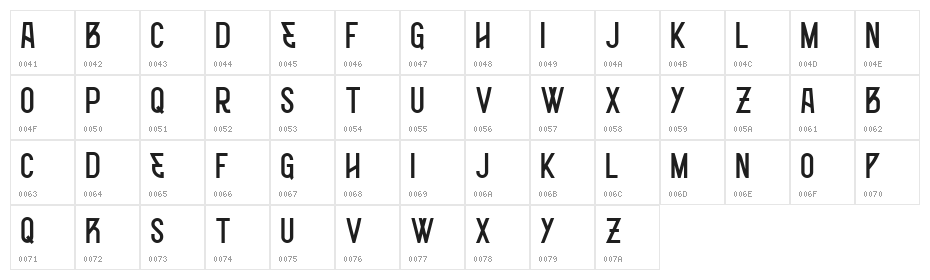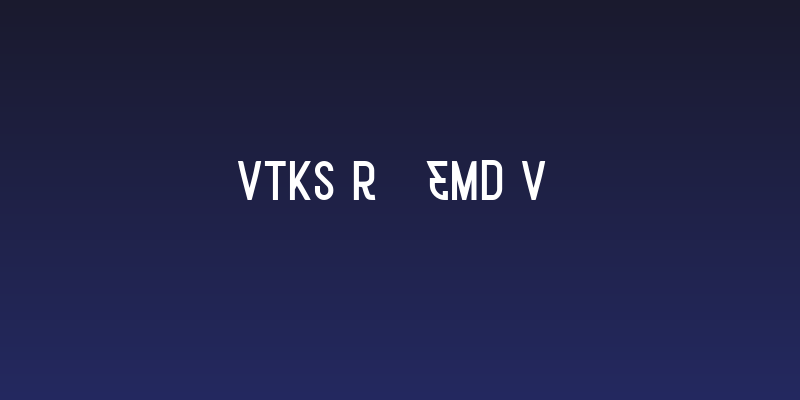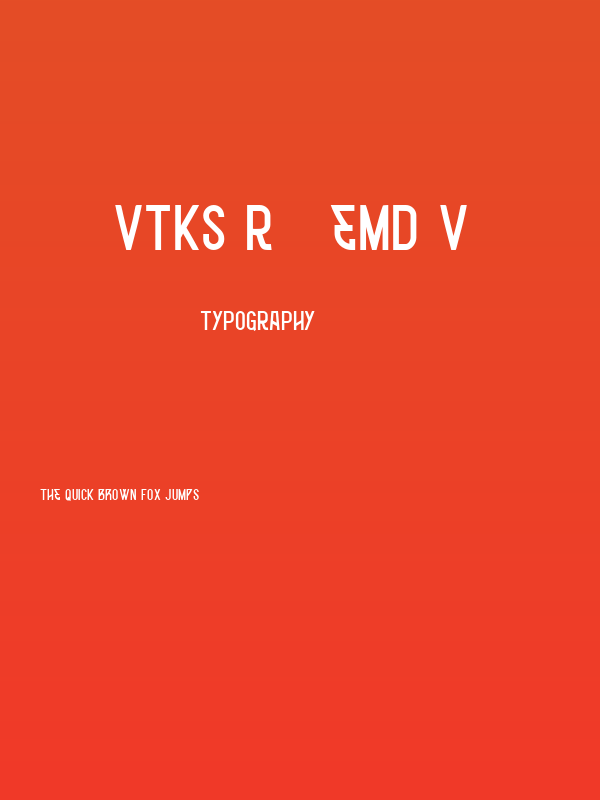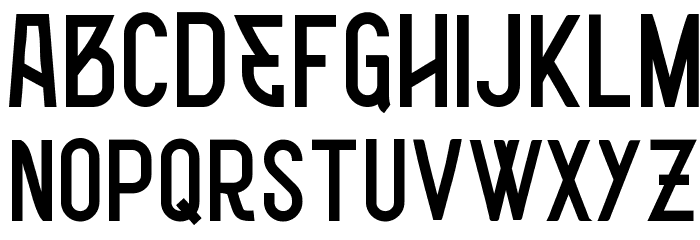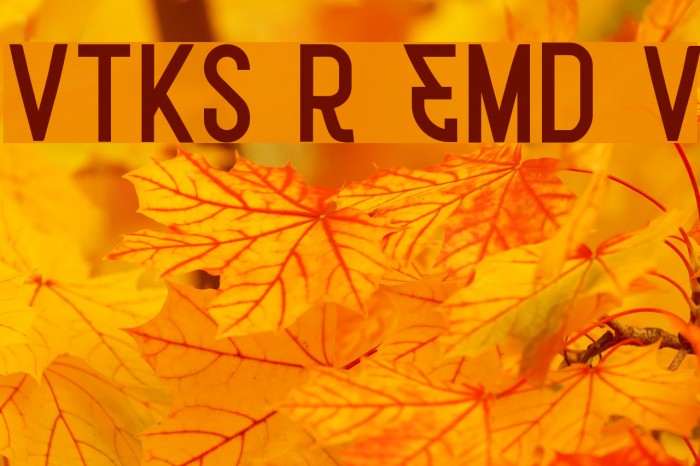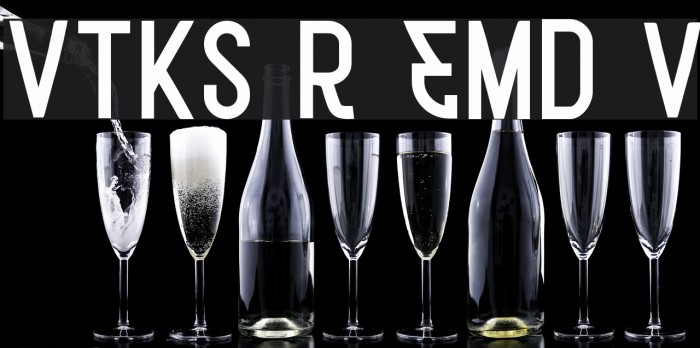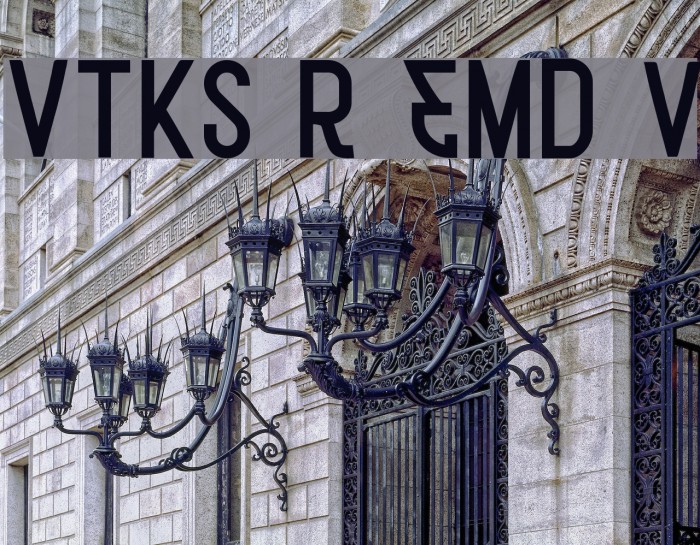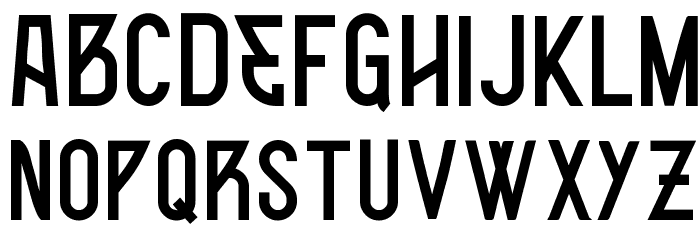
VTKS R78 EMD v2 Font
VTKS R78 EMD v2 Description
This font features a bold and striking design with angular and geometric elements. The uppercase letters are characterized by sharp edges and unique cutouts, giving them a modern and edgy appearance. The lowercase letters maintain a consistent style, with a focus on clean lines and a slightly condensed form. The numerals and special characters follow the same design principles, ensuring a cohesive look across all characters. This font's distinct style makes it ideal for projects that require a strong visual impact.